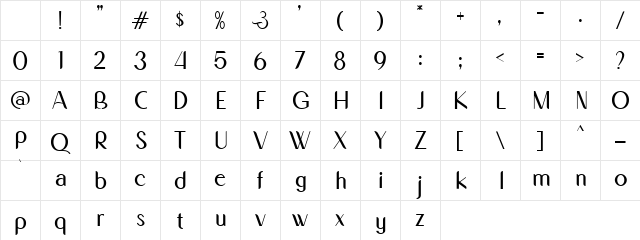
Demiella is a composed and adaptable typeface that performs quietly and consistently across a wide range of design contexts.
Pro Tip: Use Demiella in both headline and body roles to test its range before committing to a single application.